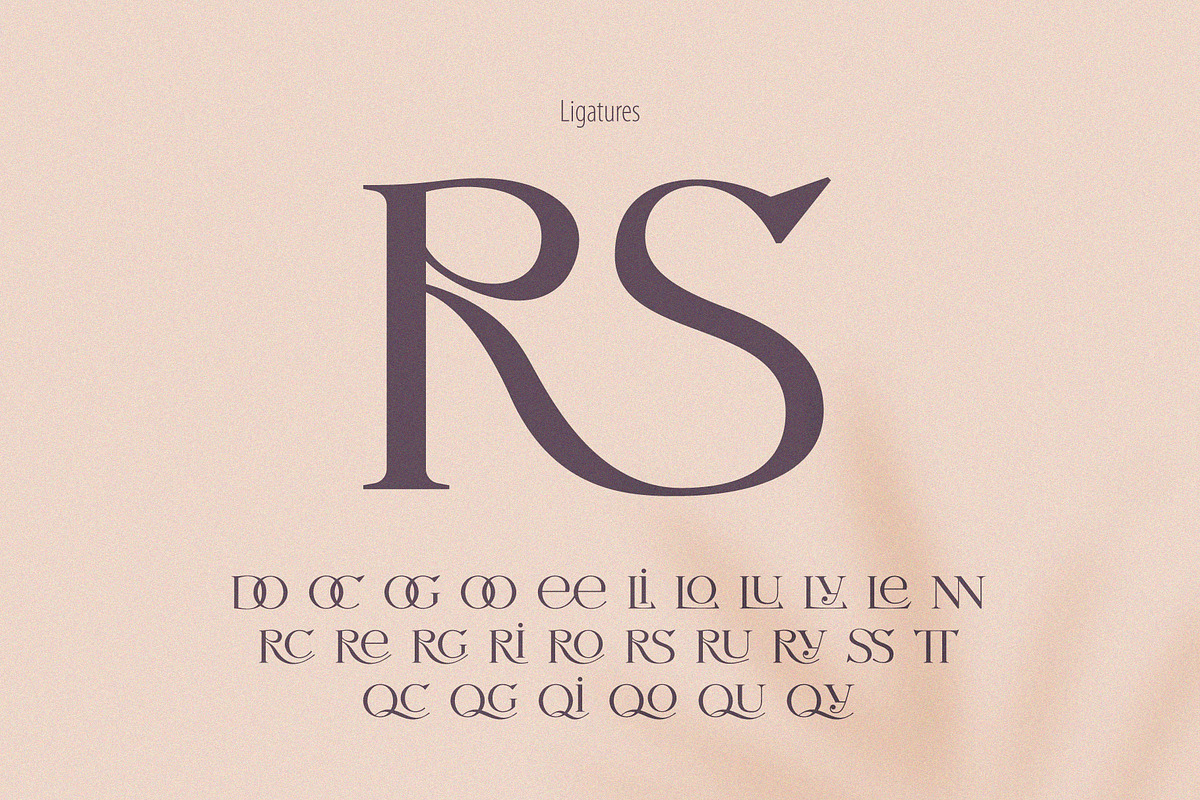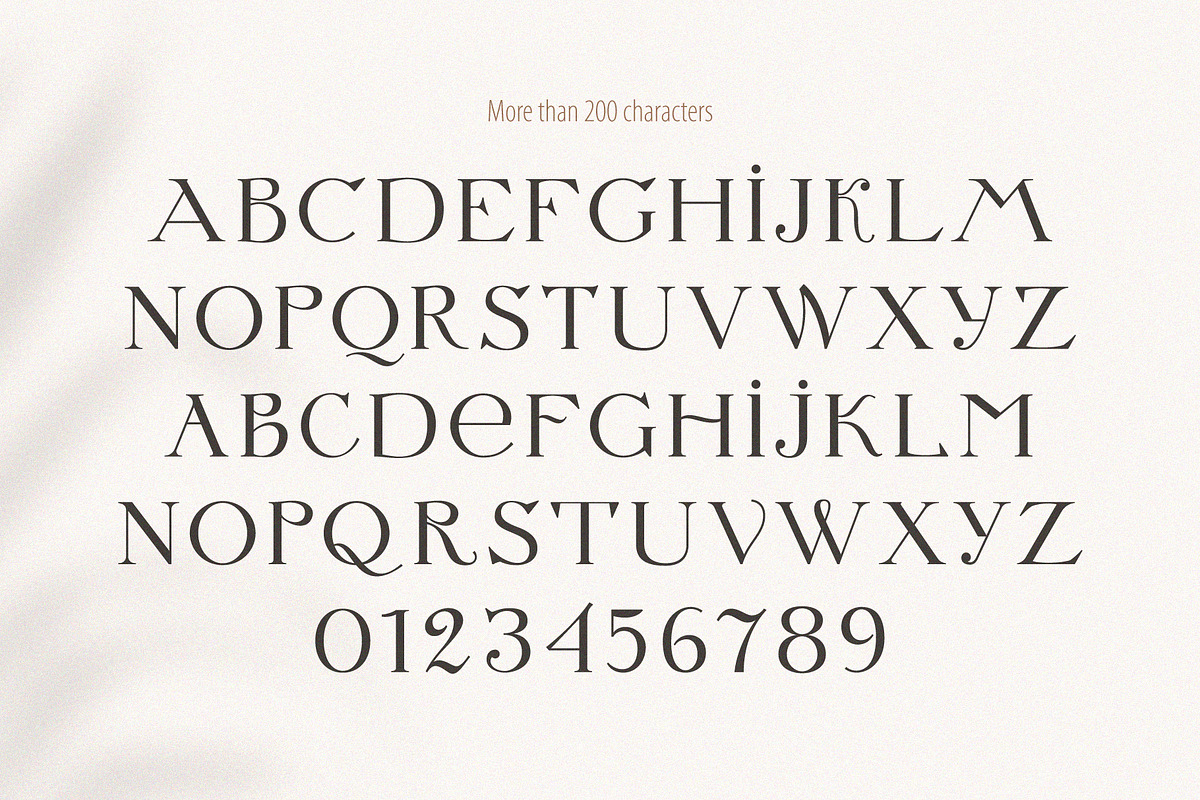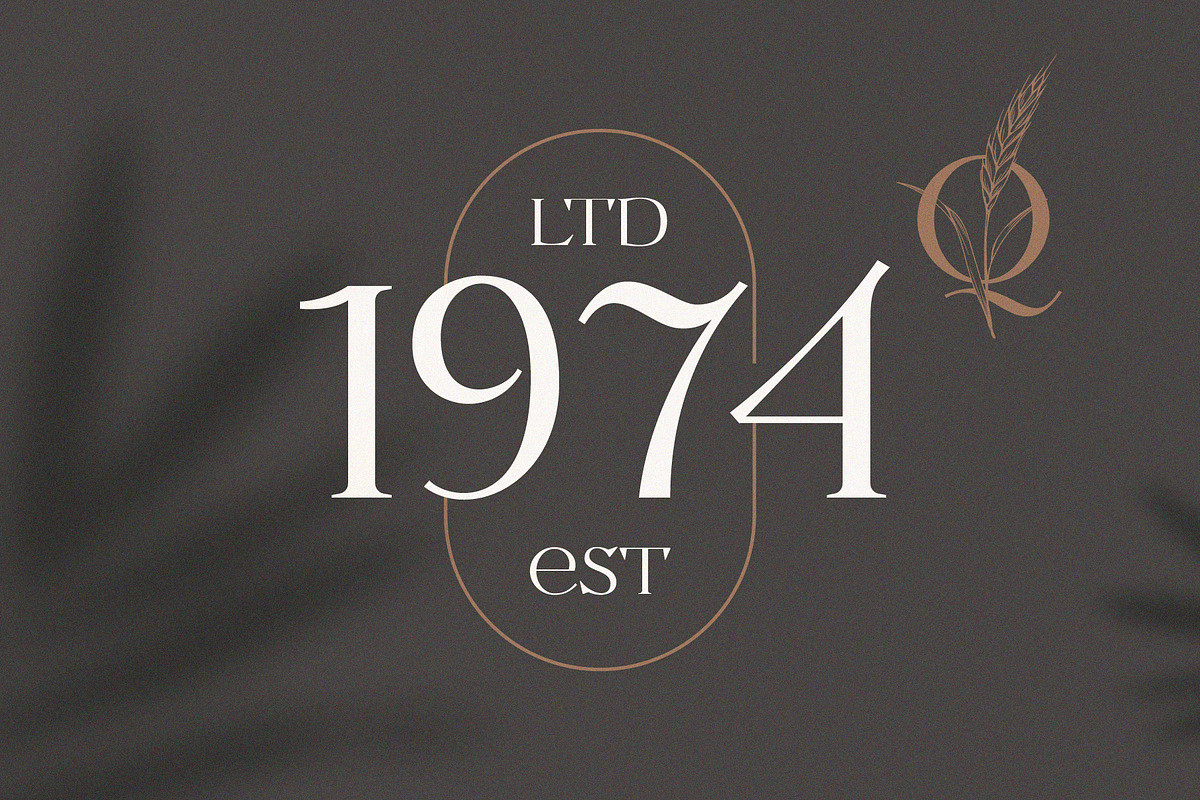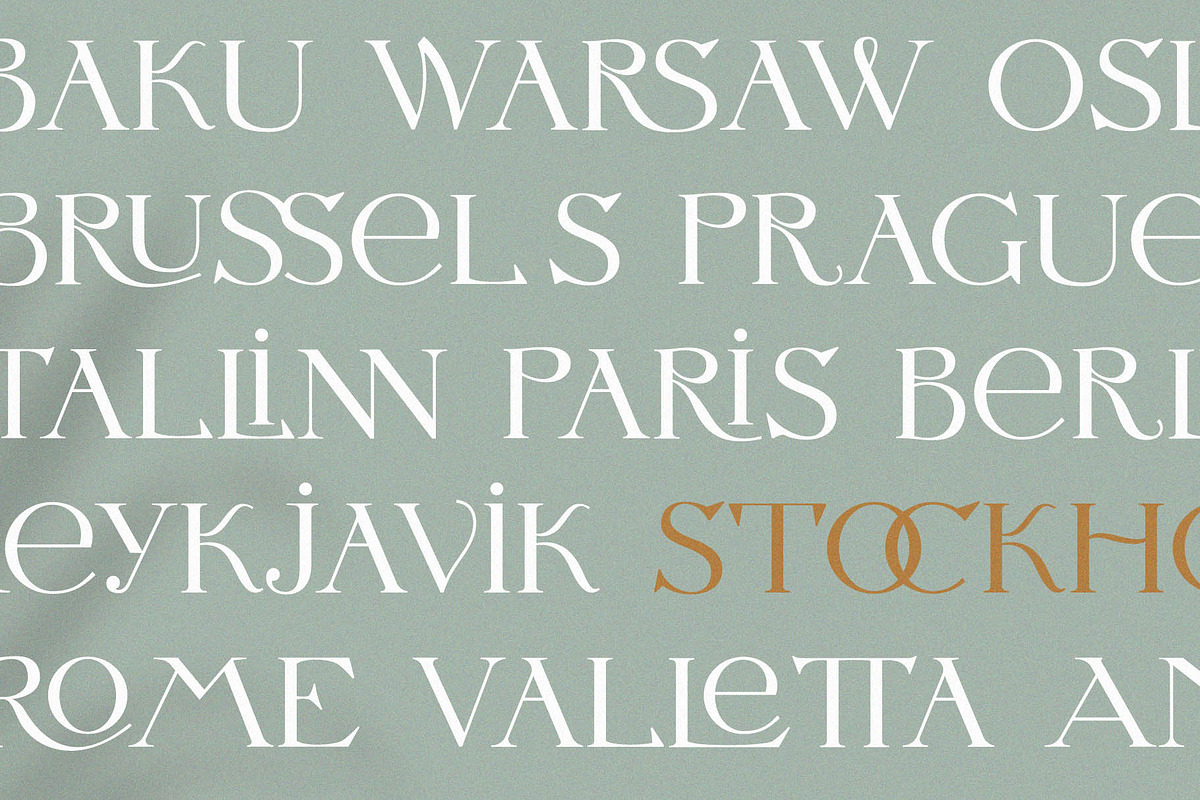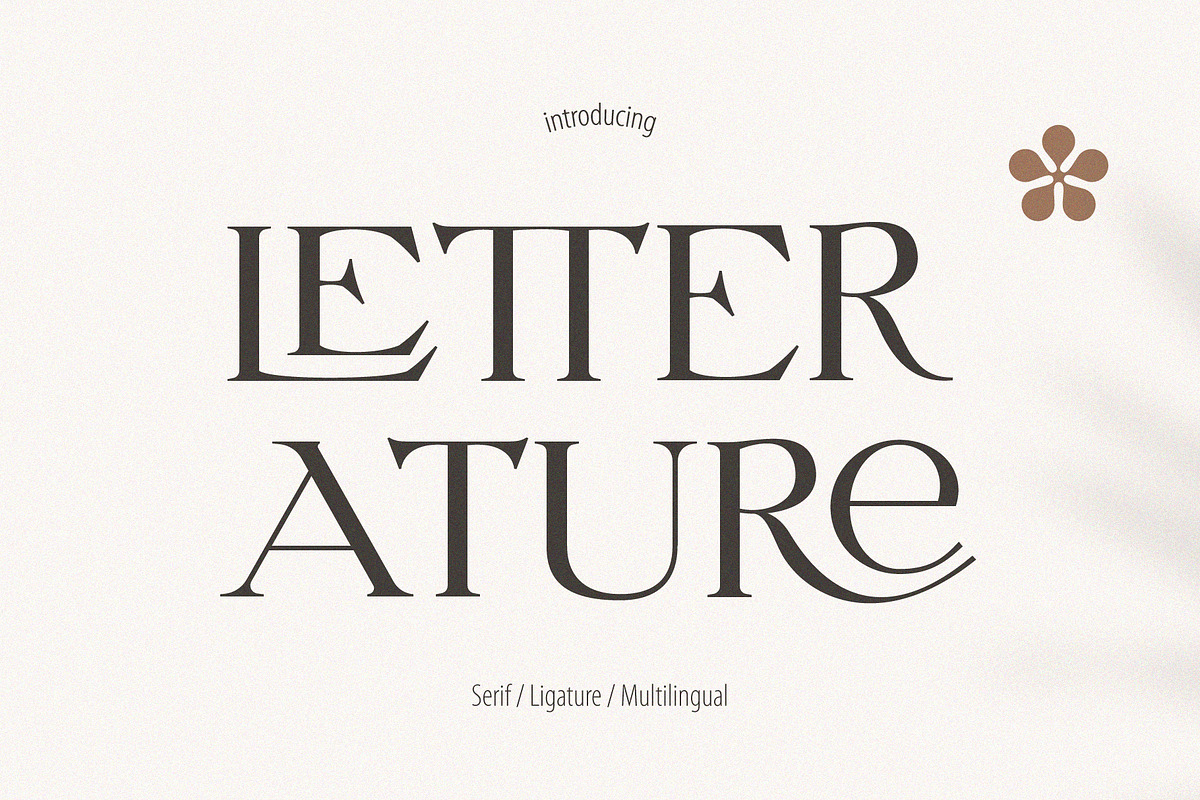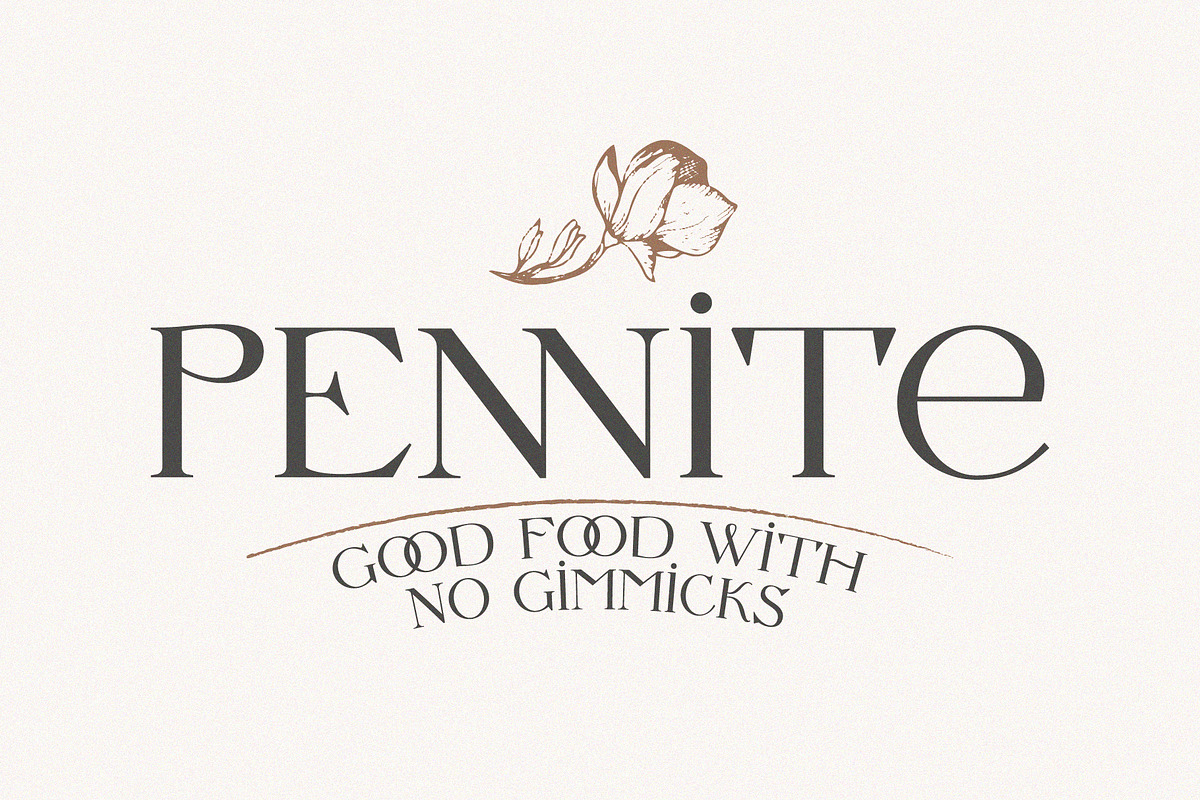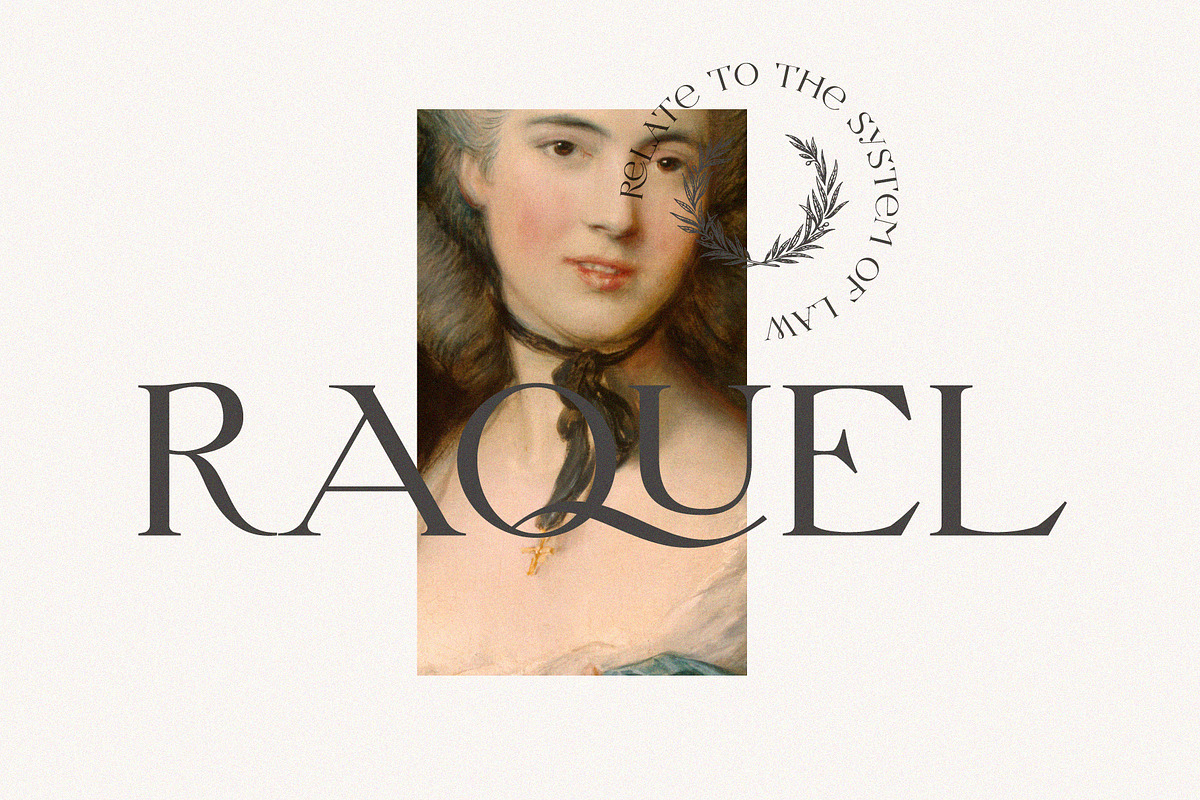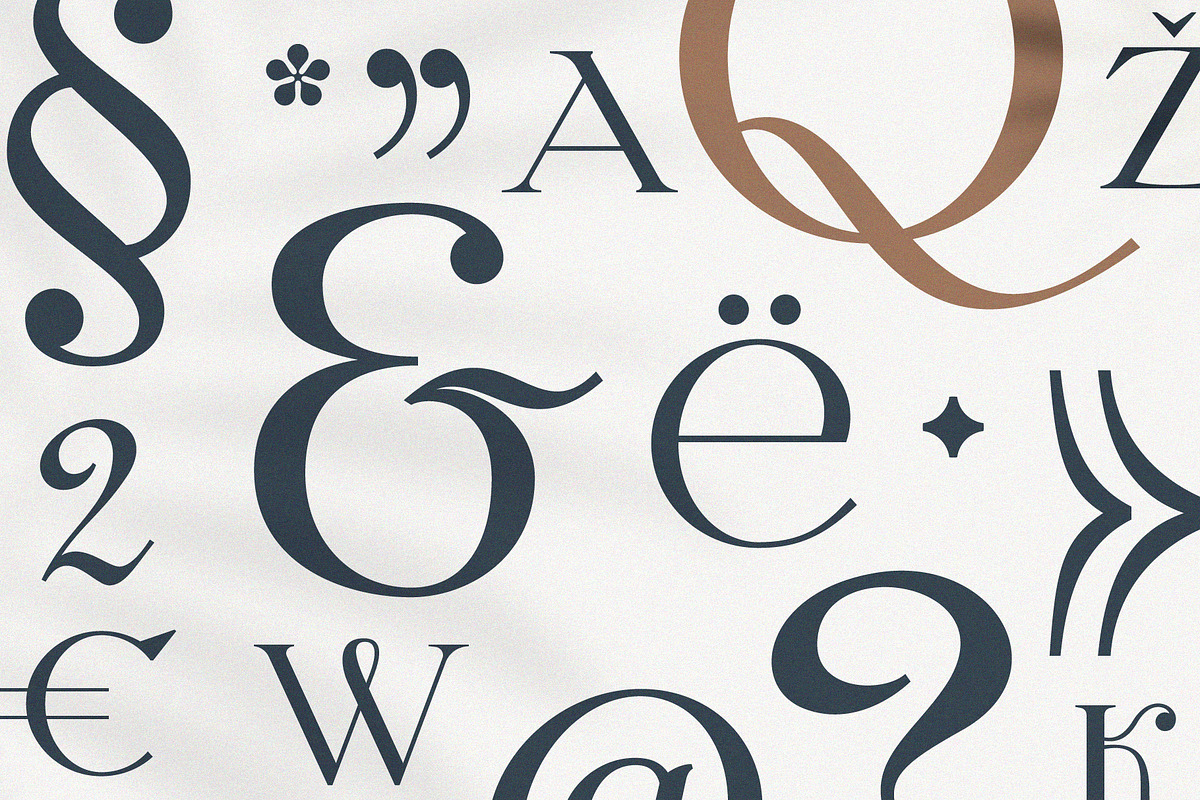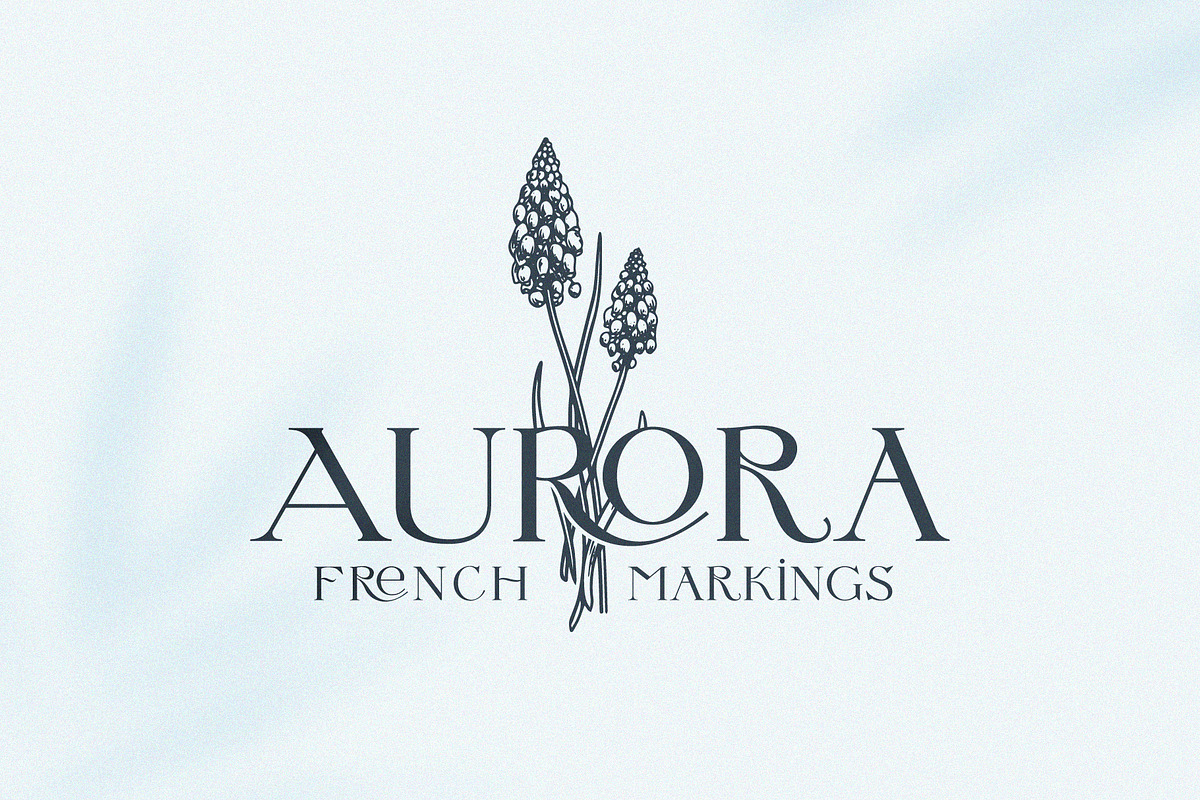
Letterature ligature serif font
Letterature is an elegant serif. I designed old-fashioned letters with playful ligatures. The font may be used for creating classical printing, logo design, clothing embroidery, product packaging, vintage header, luxury identity, etc.